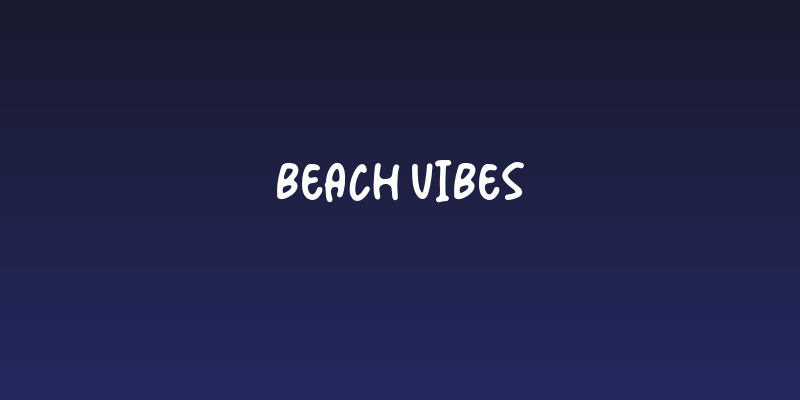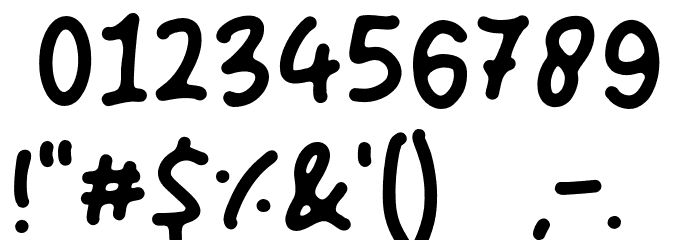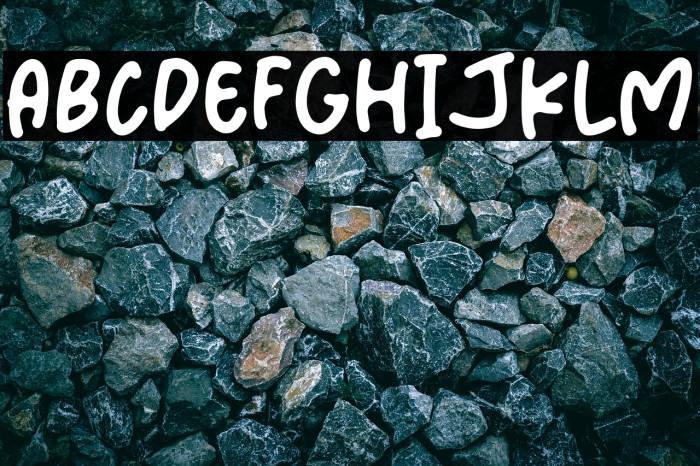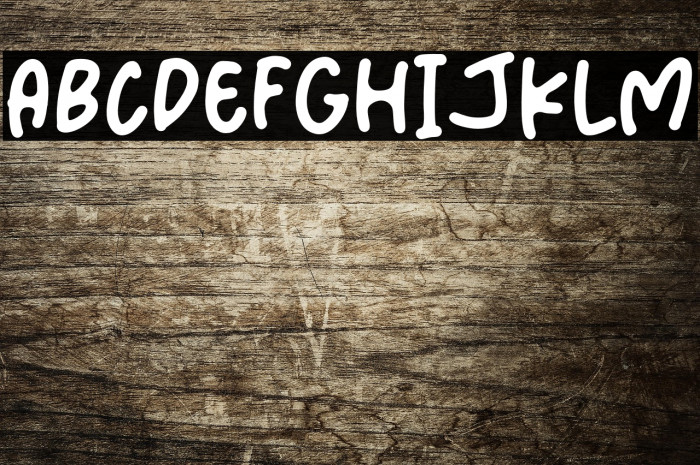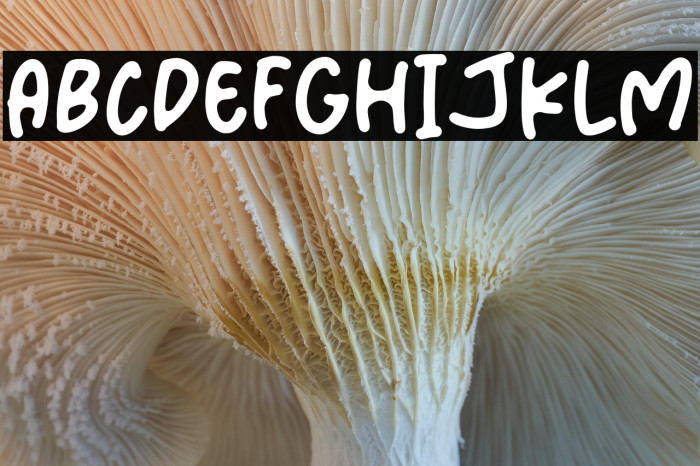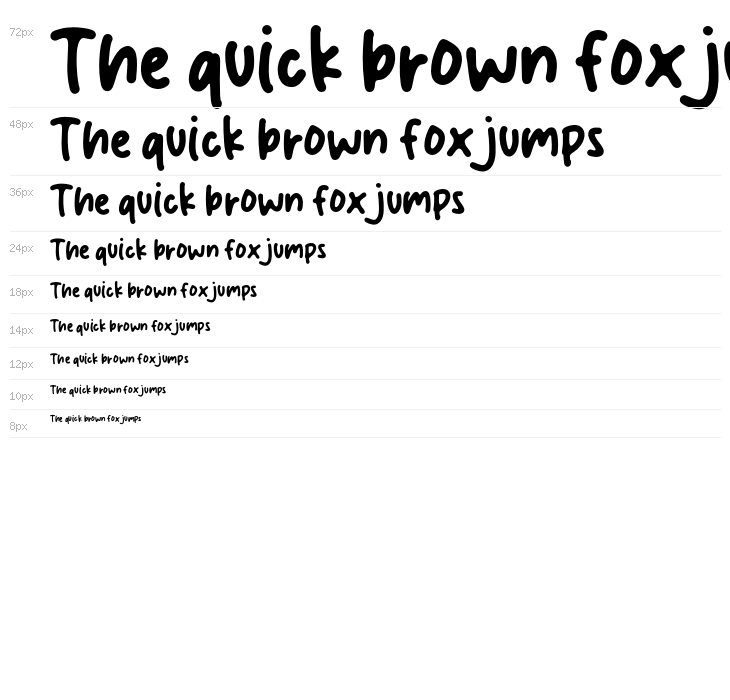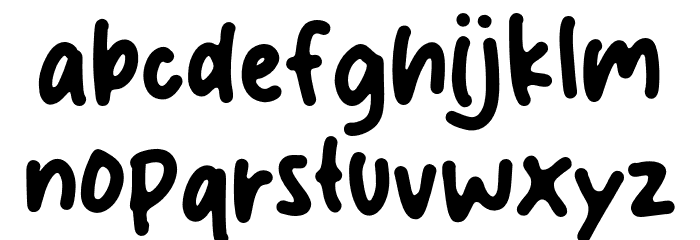
Beach Vibes Font
Beach Vibes Description
This font exudes a playful and relaxed vibe, reminiscent of handwritten notes or casual beach signage. The letters are bold and rounded, with a slightly uneven baseline that adds to its informal charm. The strokes are consistent in thickness, providing a uniform appearance across both uppercase and lowercase letters. The numerals and special characters maintain the same playful style, making it versatile for various uses. Its handwritten style is both approachable and friendly, making it suitable for projects that aim to convey warmth and personality.
| Use Case | Logos, Posters, Invitations |
| Proposed Projects | Ideal for beach-themed posters, casual invitations, children's books, and branding for relaxed, fun-oriented businesses. |